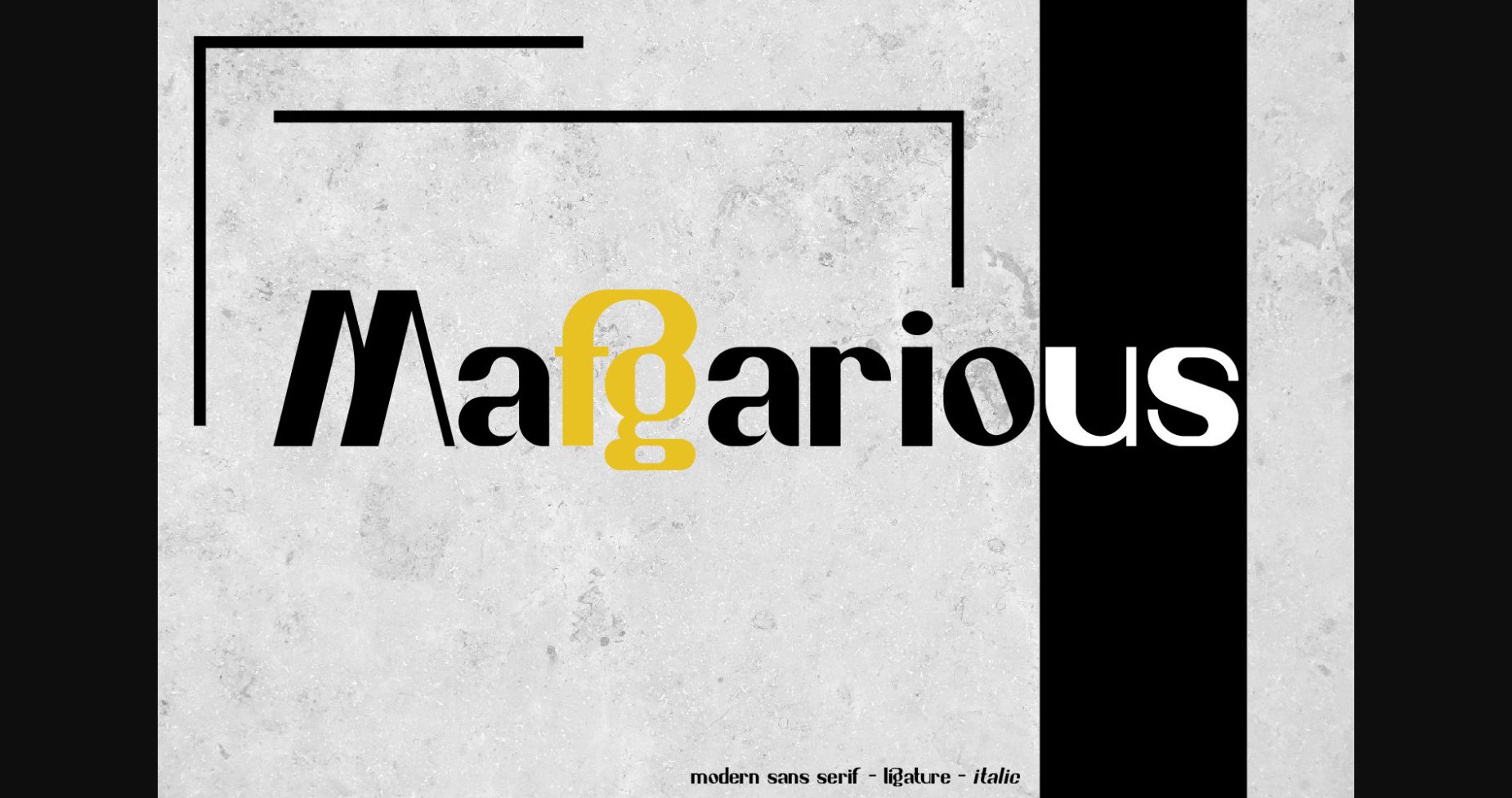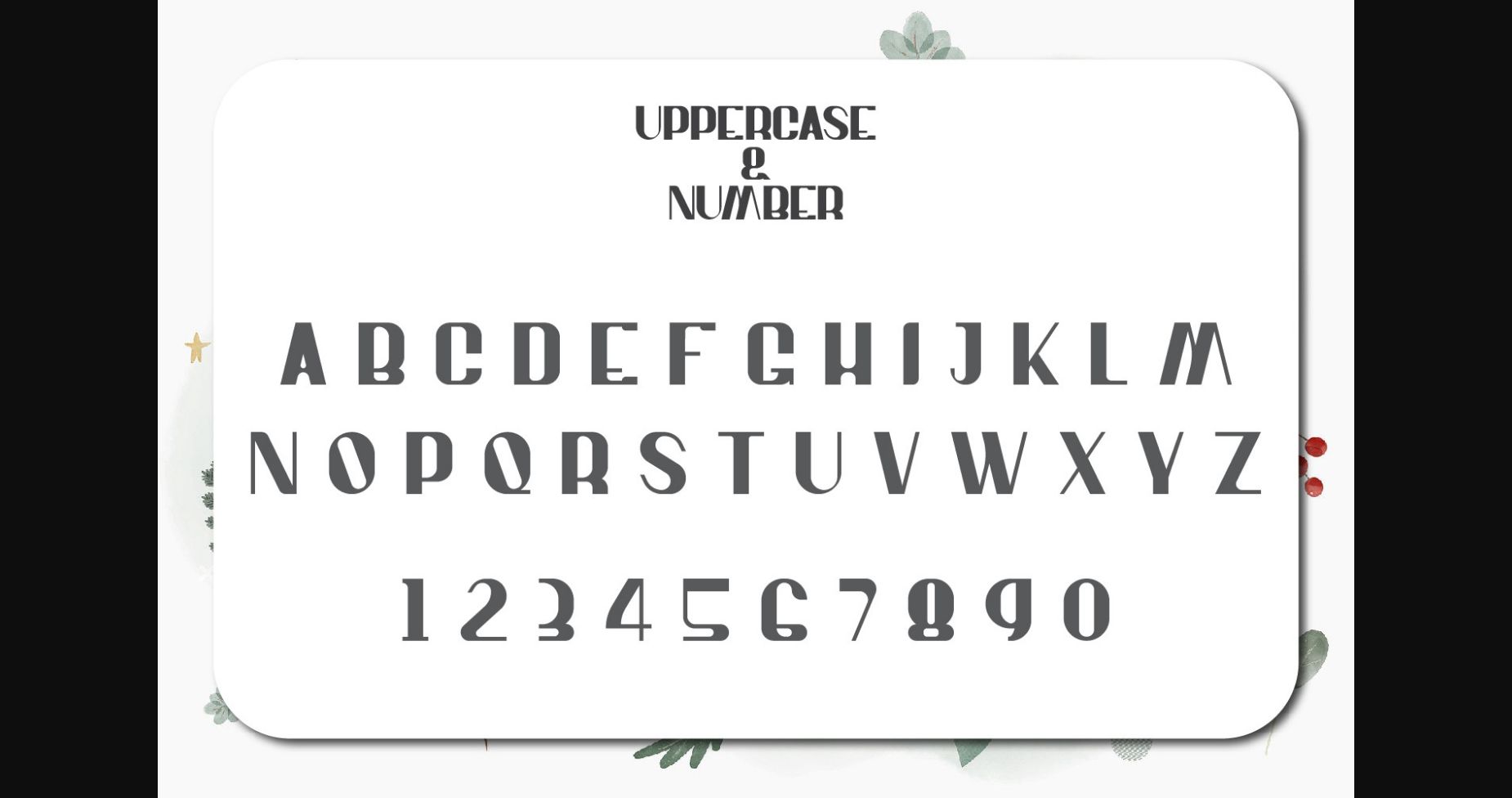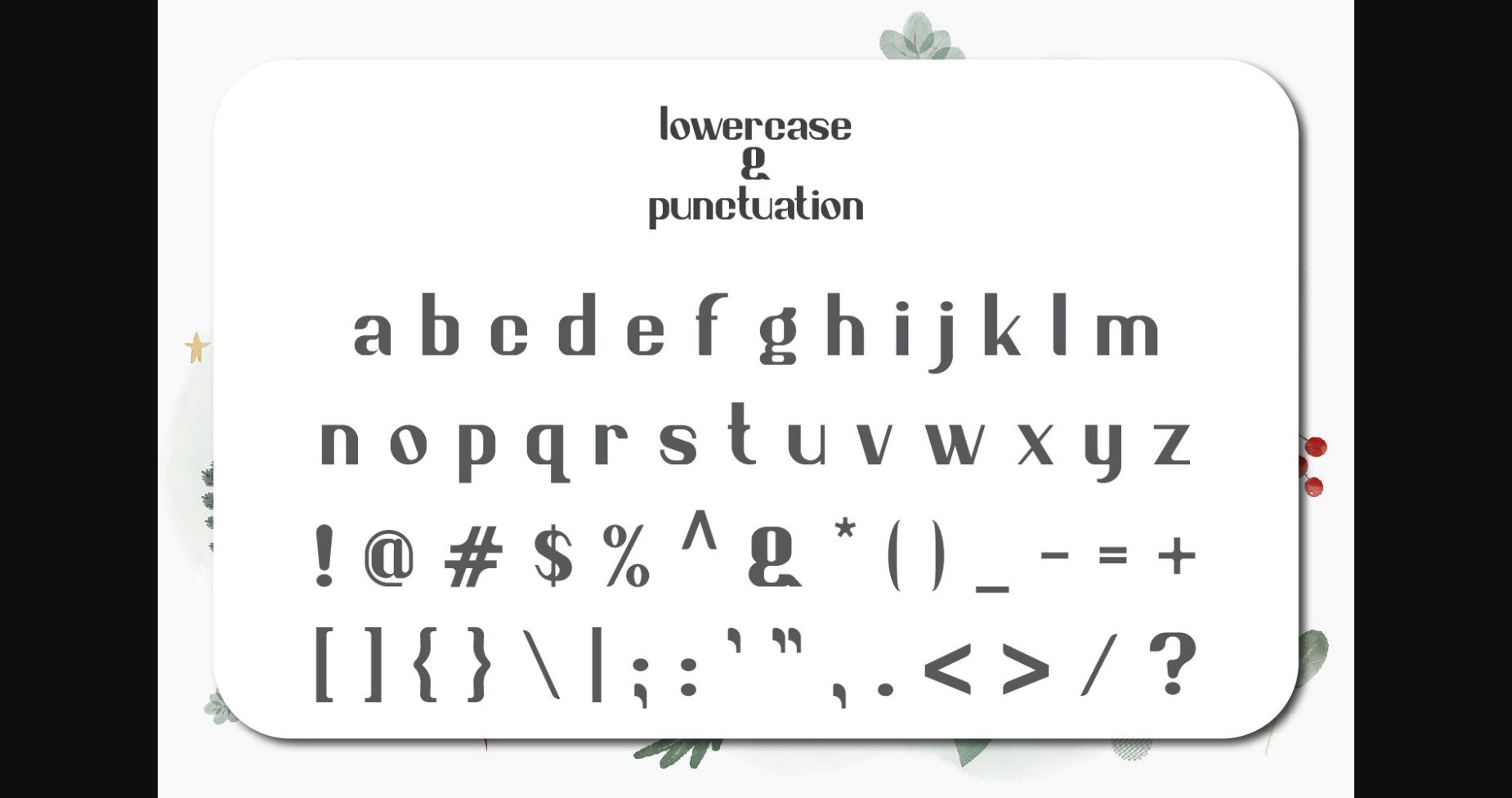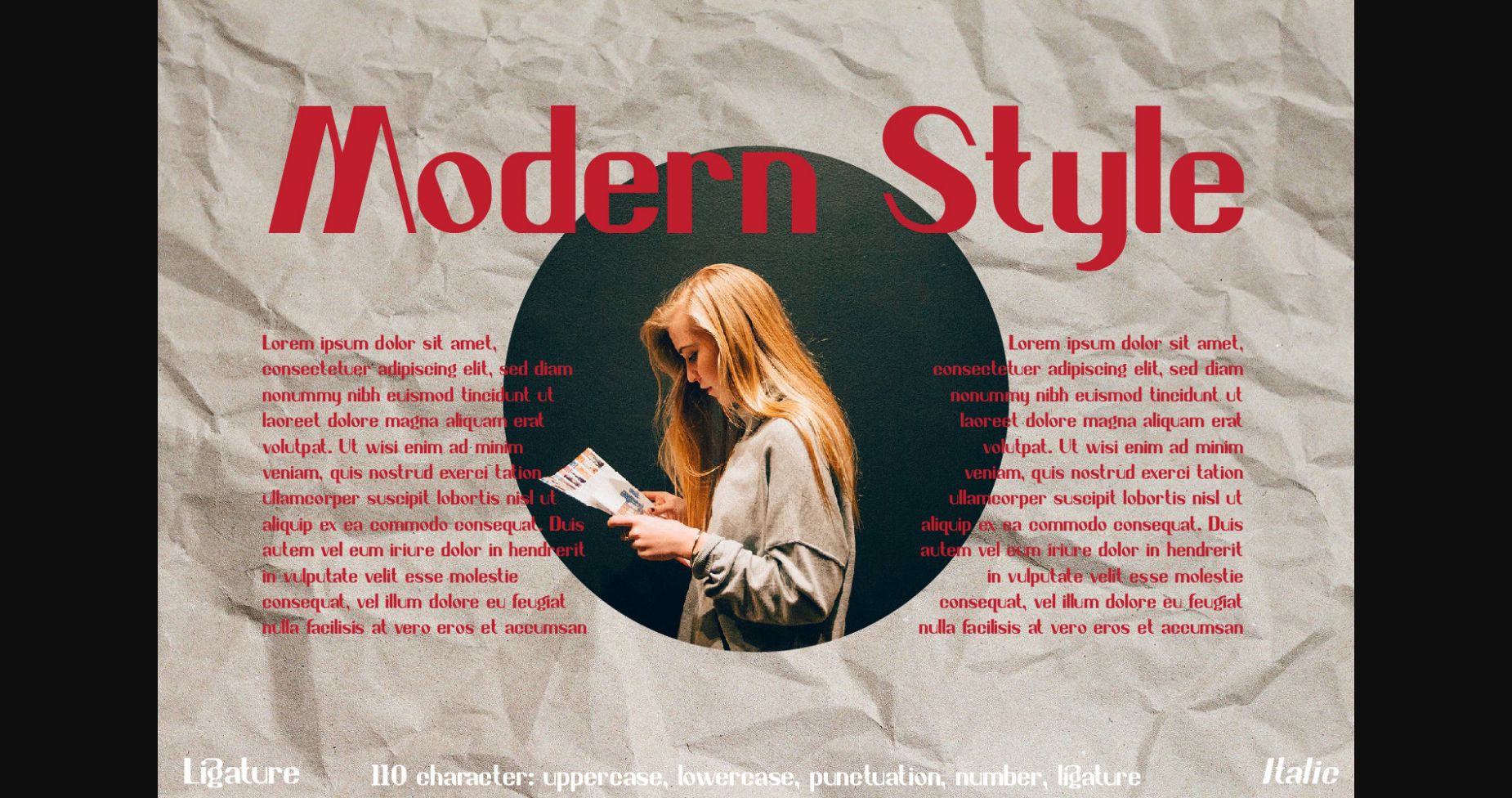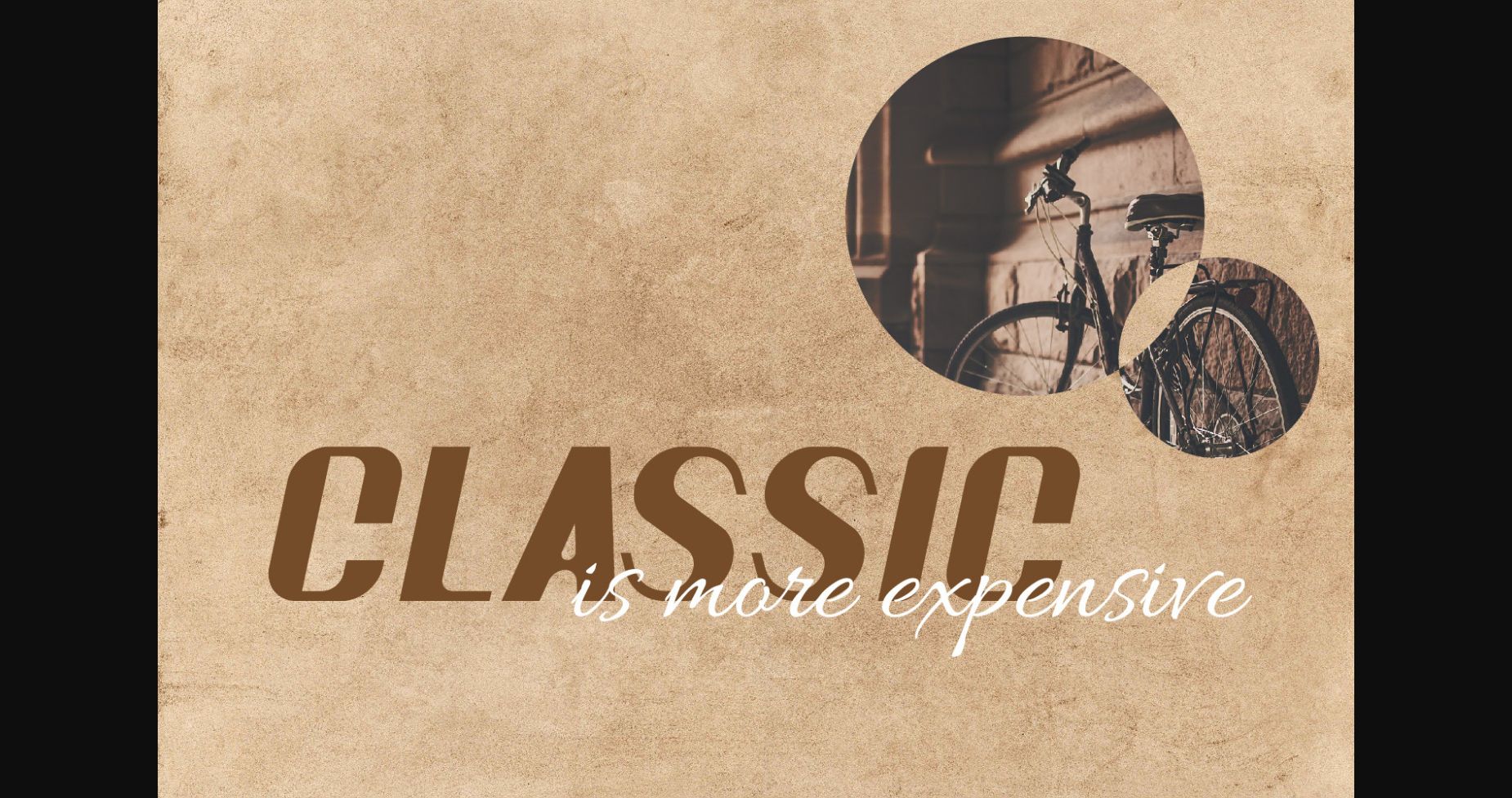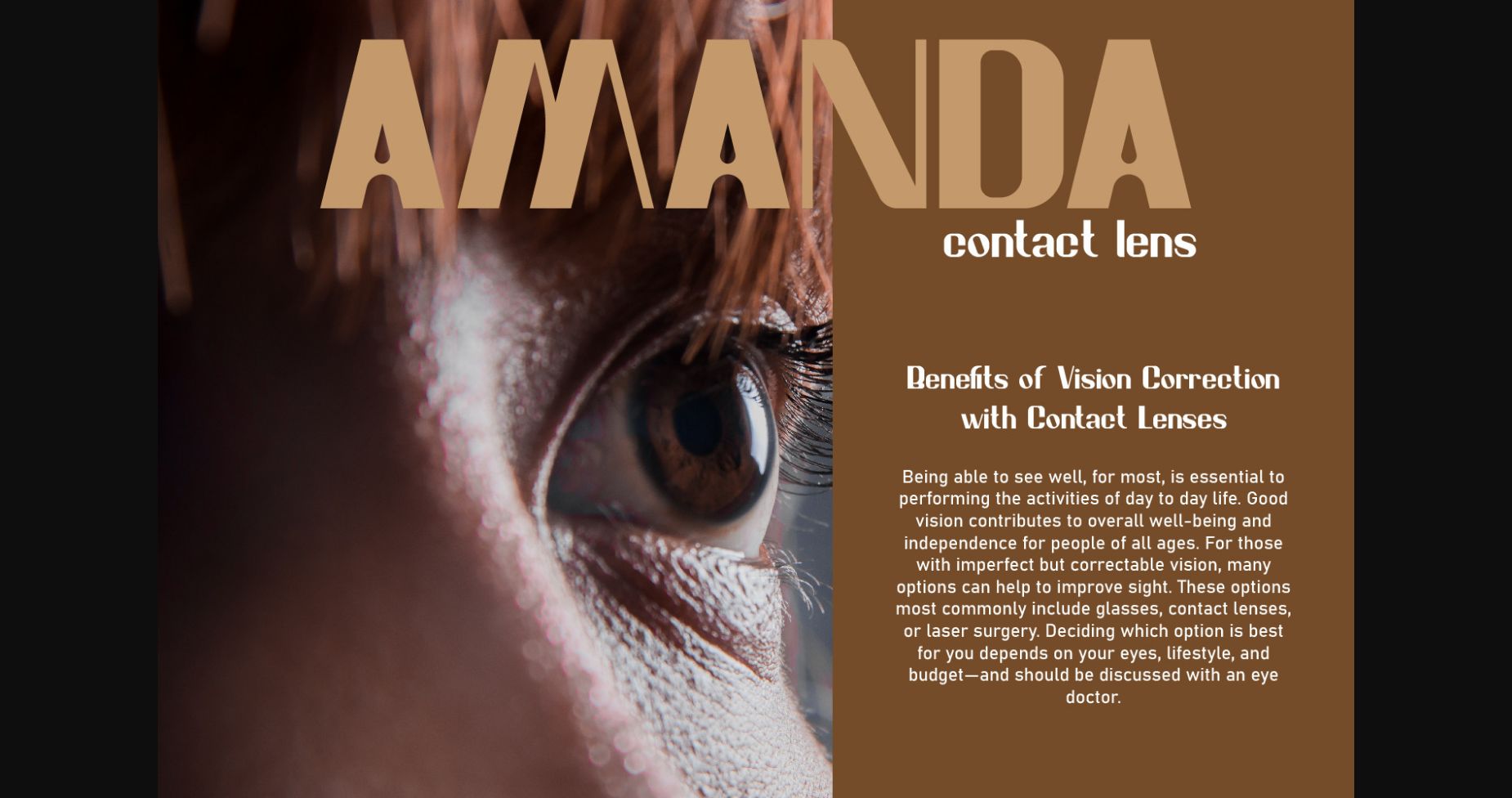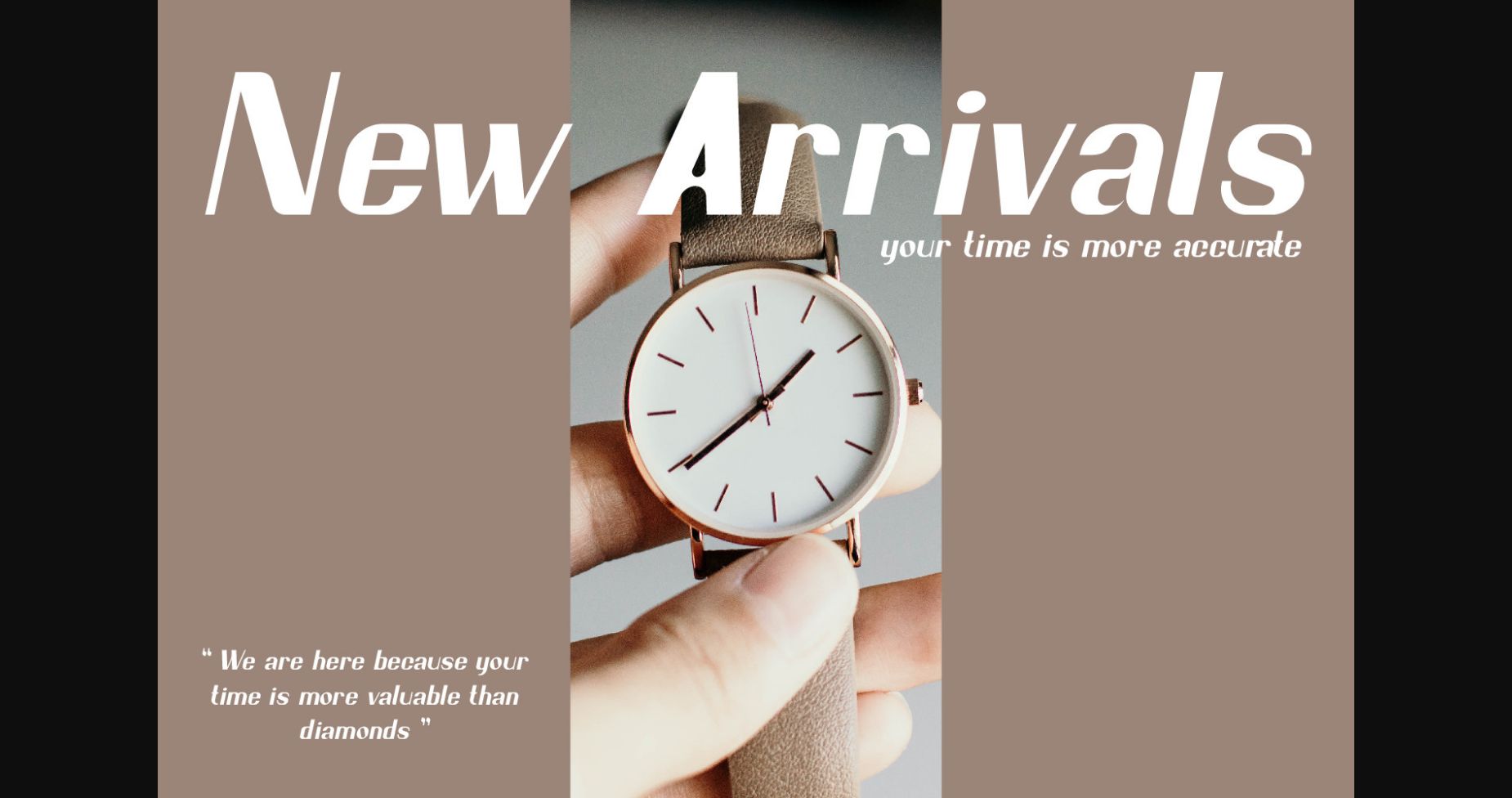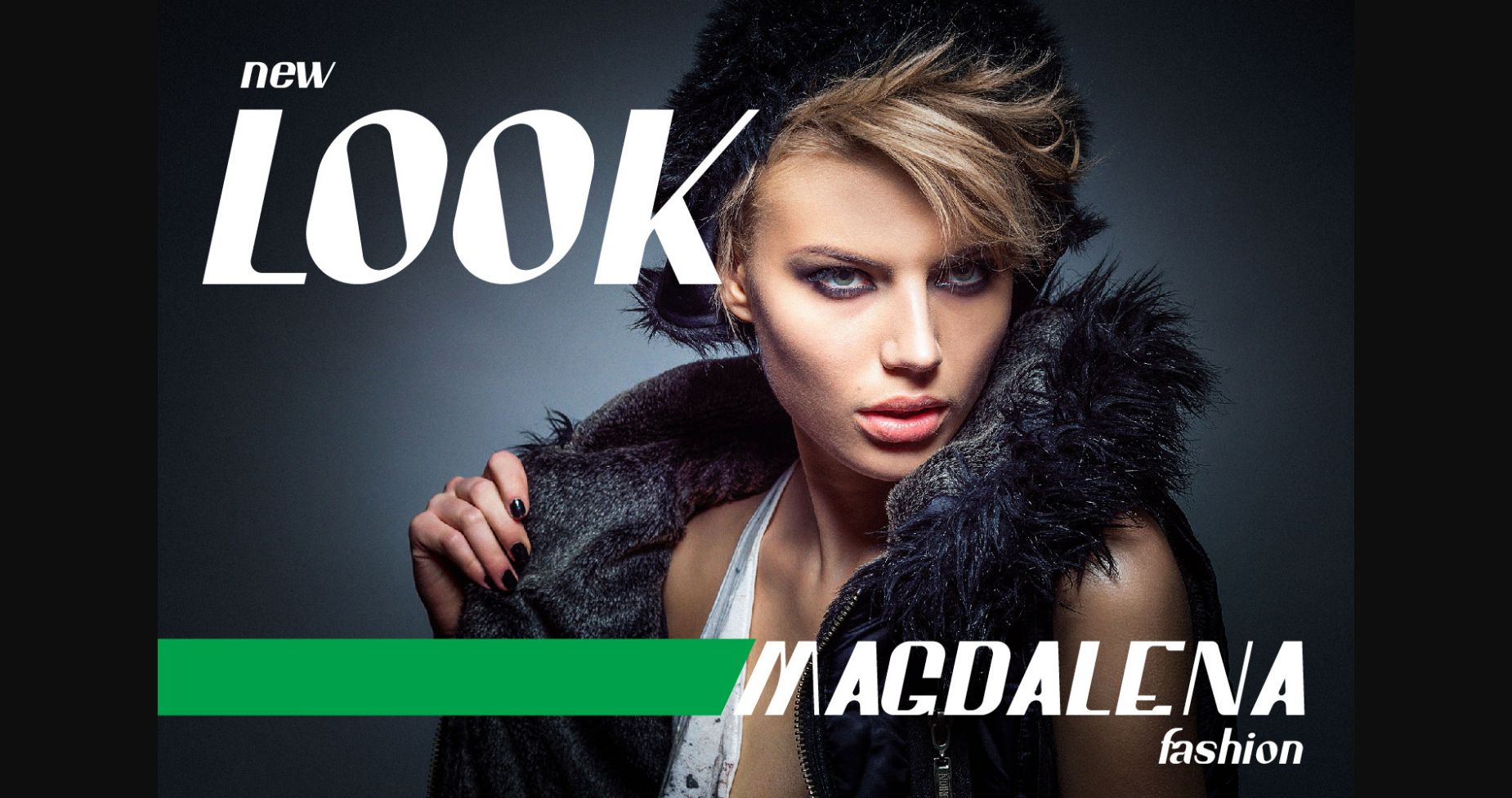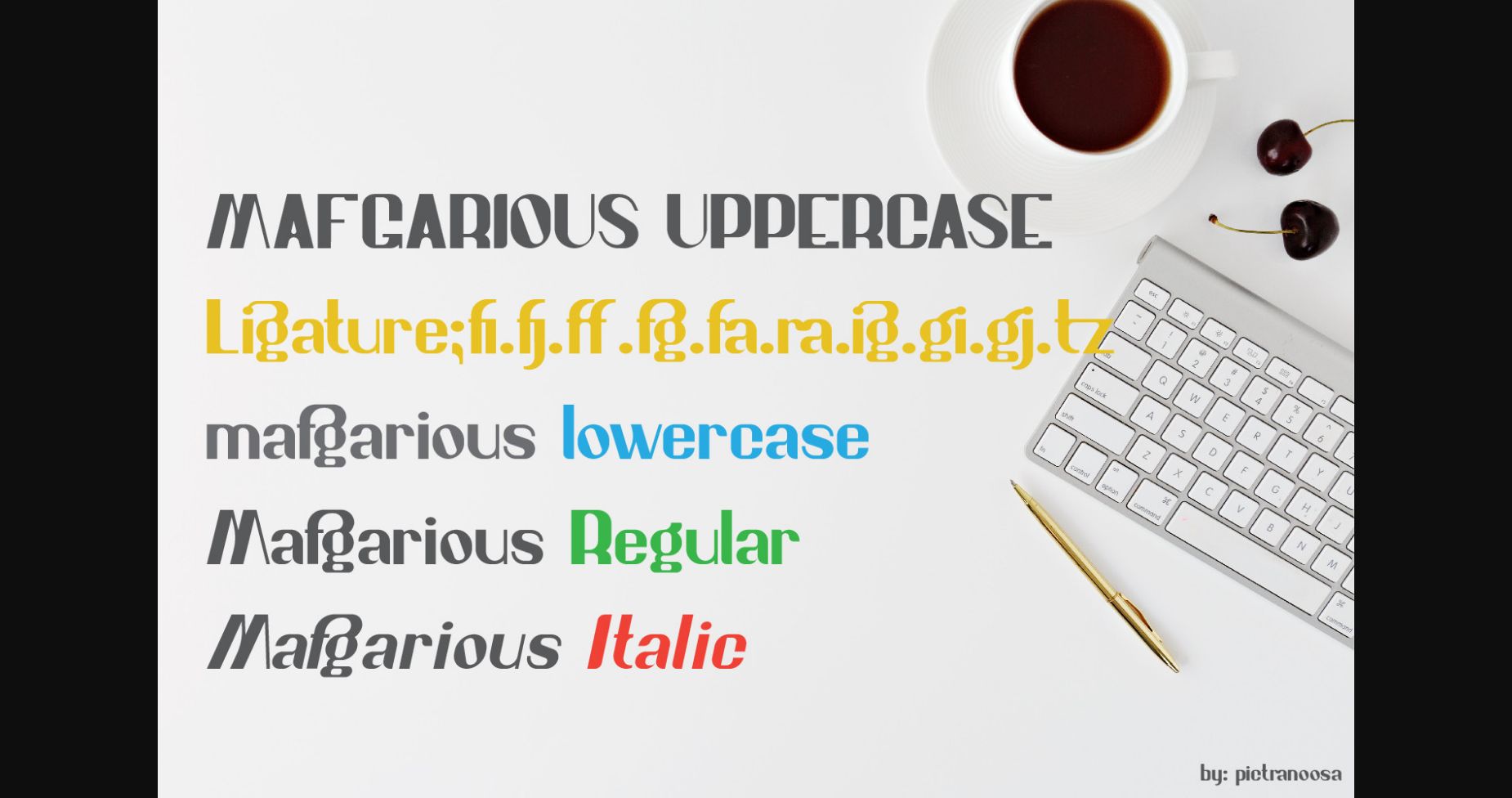
Mafgarious Font
About Mafgarious Font
Mafgarious is a beautiful sans serif font carefully crafted to give your designs a bold and optimistic look. It is perfect for the title or body of an article or a magazine cover. Add it to your work, and it will make your designs unique and outstanding!